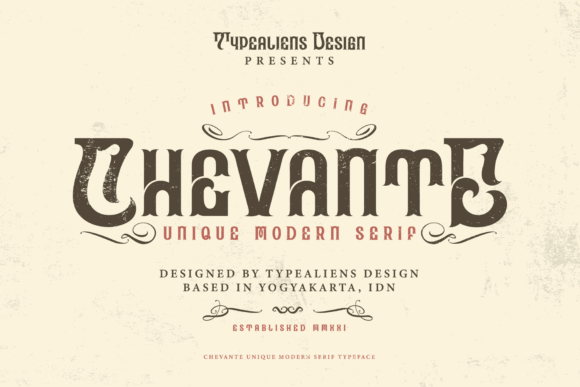
Unleash the power of nostalgia with Chevante Font, a vintage-inspired display typeface that evokes the charm of yesteryear while embracing the present. Its bold, confident strokes capture the essence of classic logos, adding an air of sophistication and timelessness to your designs.
With Chevante Font, you'll embark on a journey to the past, where nostalgia intertwines with contemporary style. Its intricate details and elegant curves are a testament to the enduring power of vintage aesthetics, ensuring that your creations leave a lasting impression.
Whether you're crafting logos, posters, or any other design project that demands a touch of retro flair, Chevante Font is the perfect choice. Its versatility and timeless appeal make it an essential tool for designers seeking to evoke a sense of heritage and authenticity.
Join the ranks of creative visionaries who have harnessed the power of Chevante Font to elevate their designs to new heights. Let its vintage charm and bold character ignite your inspiration and transport your creations to an era of timeless elegance.